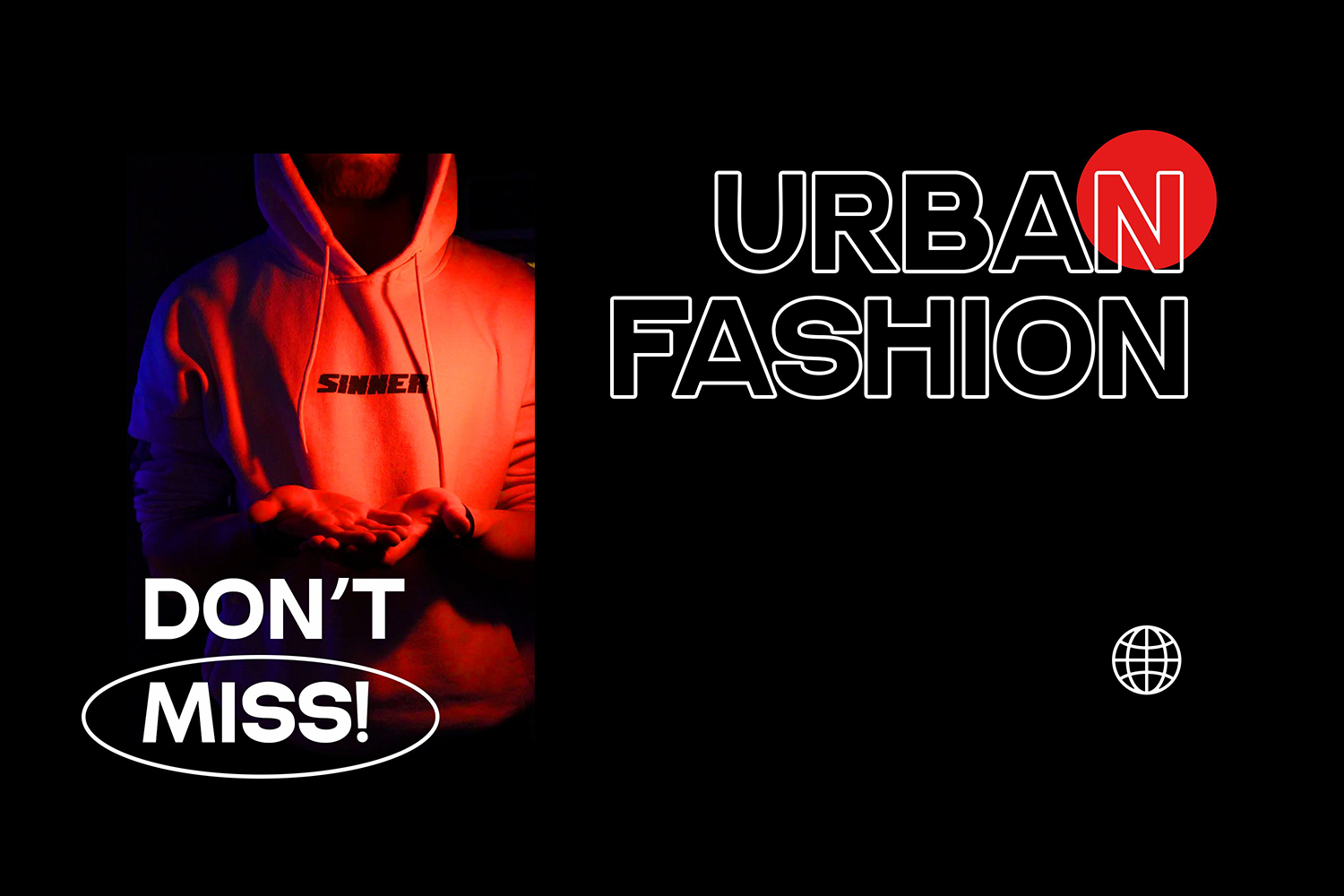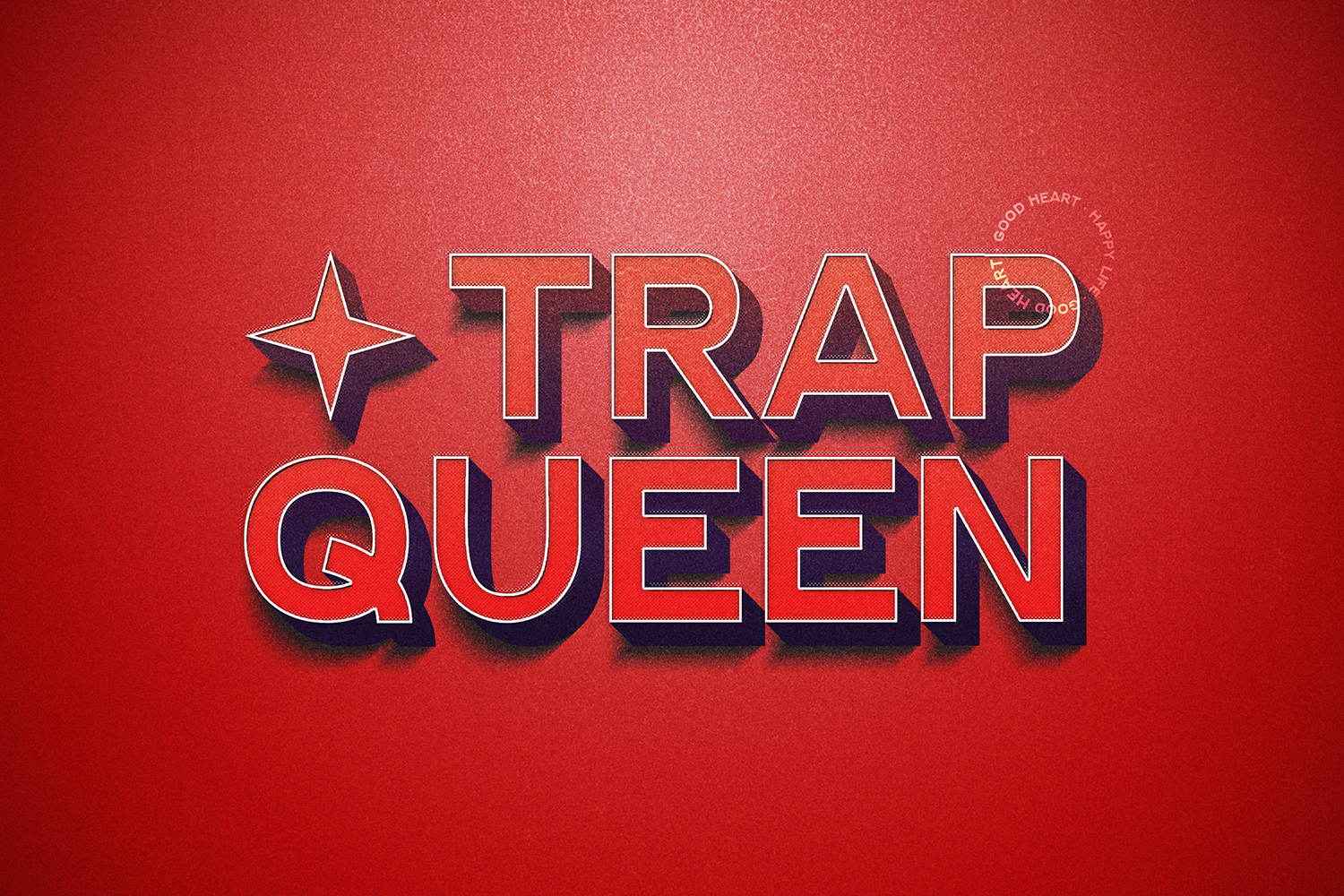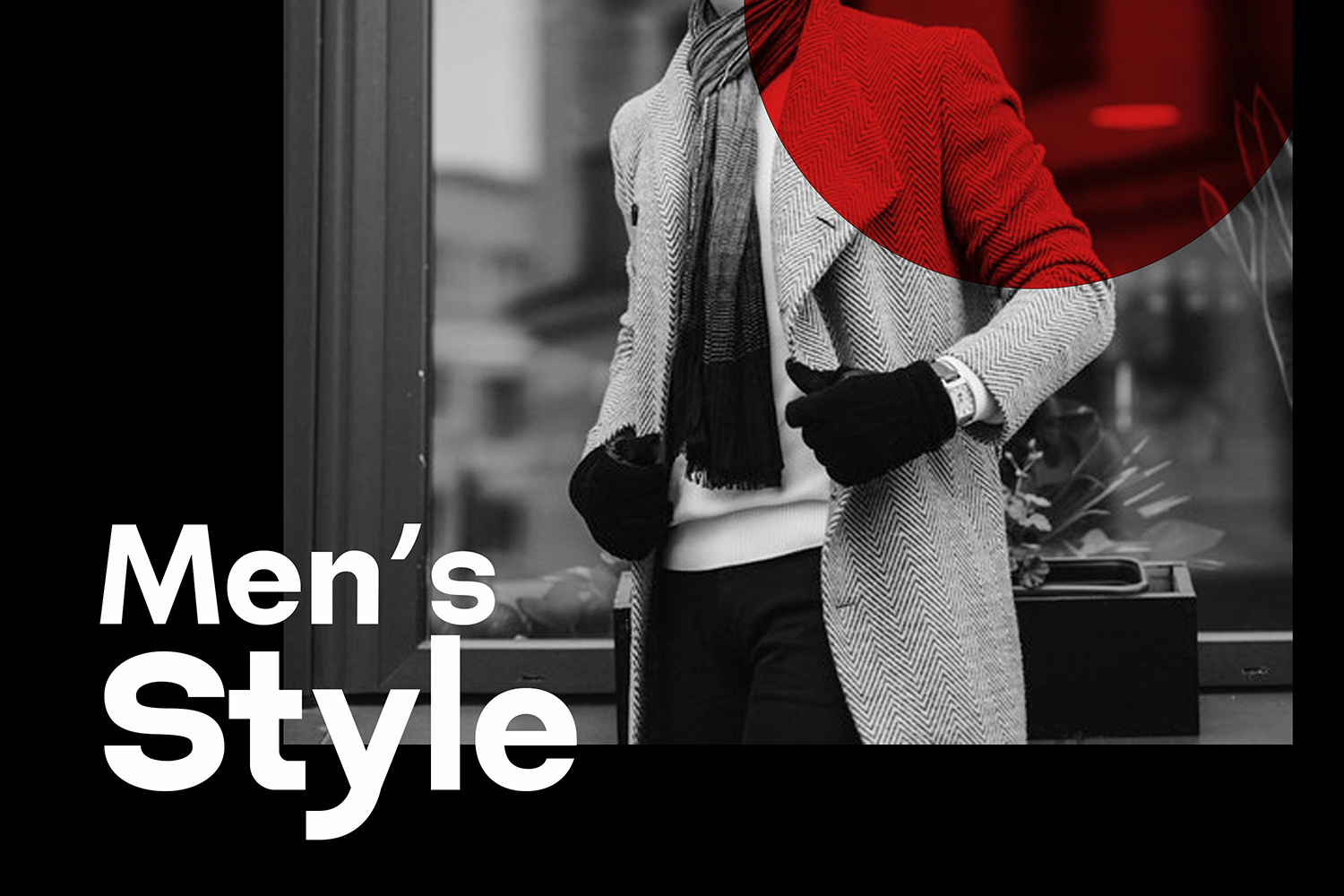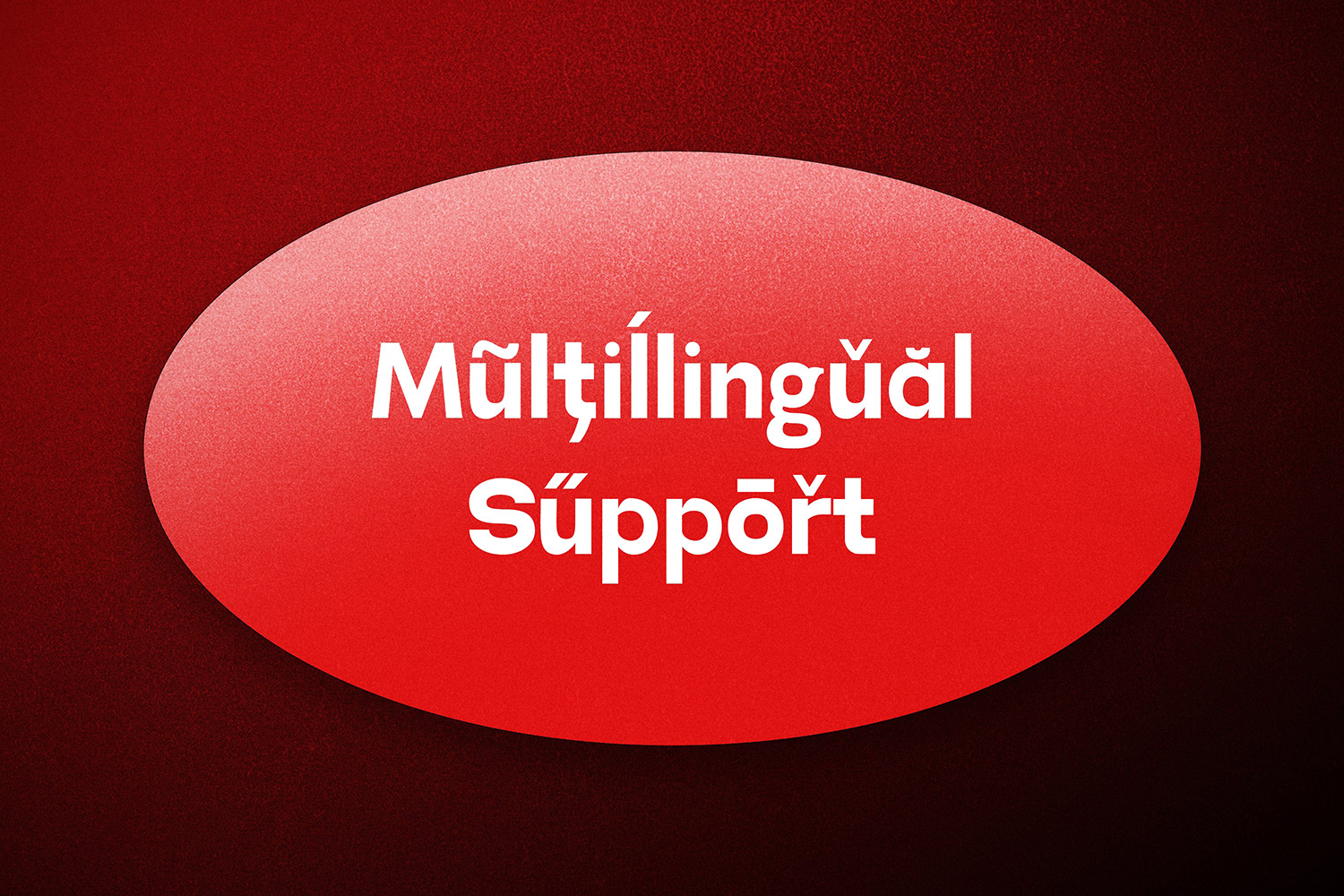
Minerva Free Font
Discover Minerva Free Font, a contemporary sans-serif font. With its versatility, this font seamlessly complements a wide range of projects. Incorporate it into your creative concepts and witness the remarkable enhancement it brings to your designs, making them truly stand out. This free typeface was designed by a talented Moonstone Co. If you like it don’t forget to check out the full version.